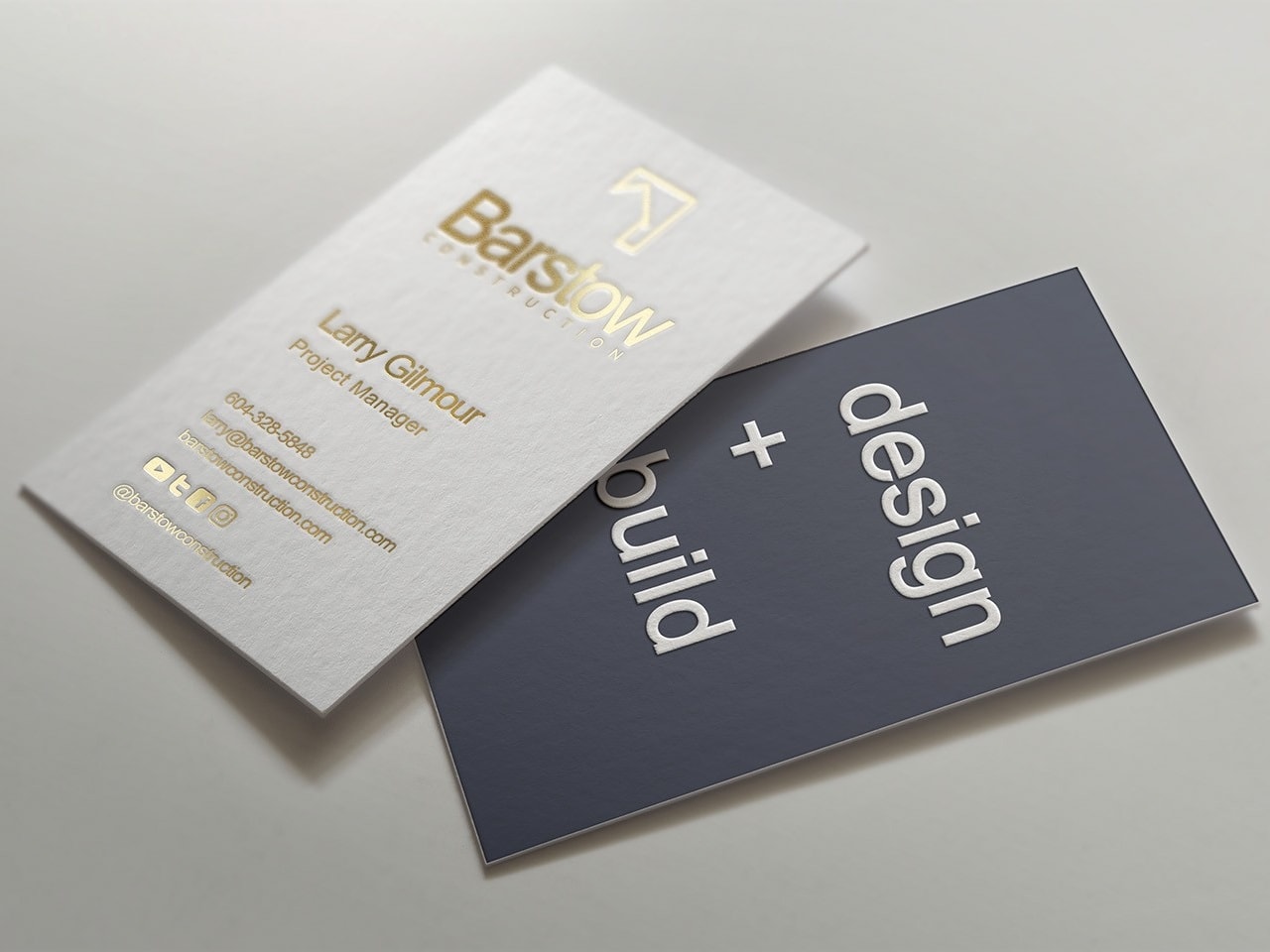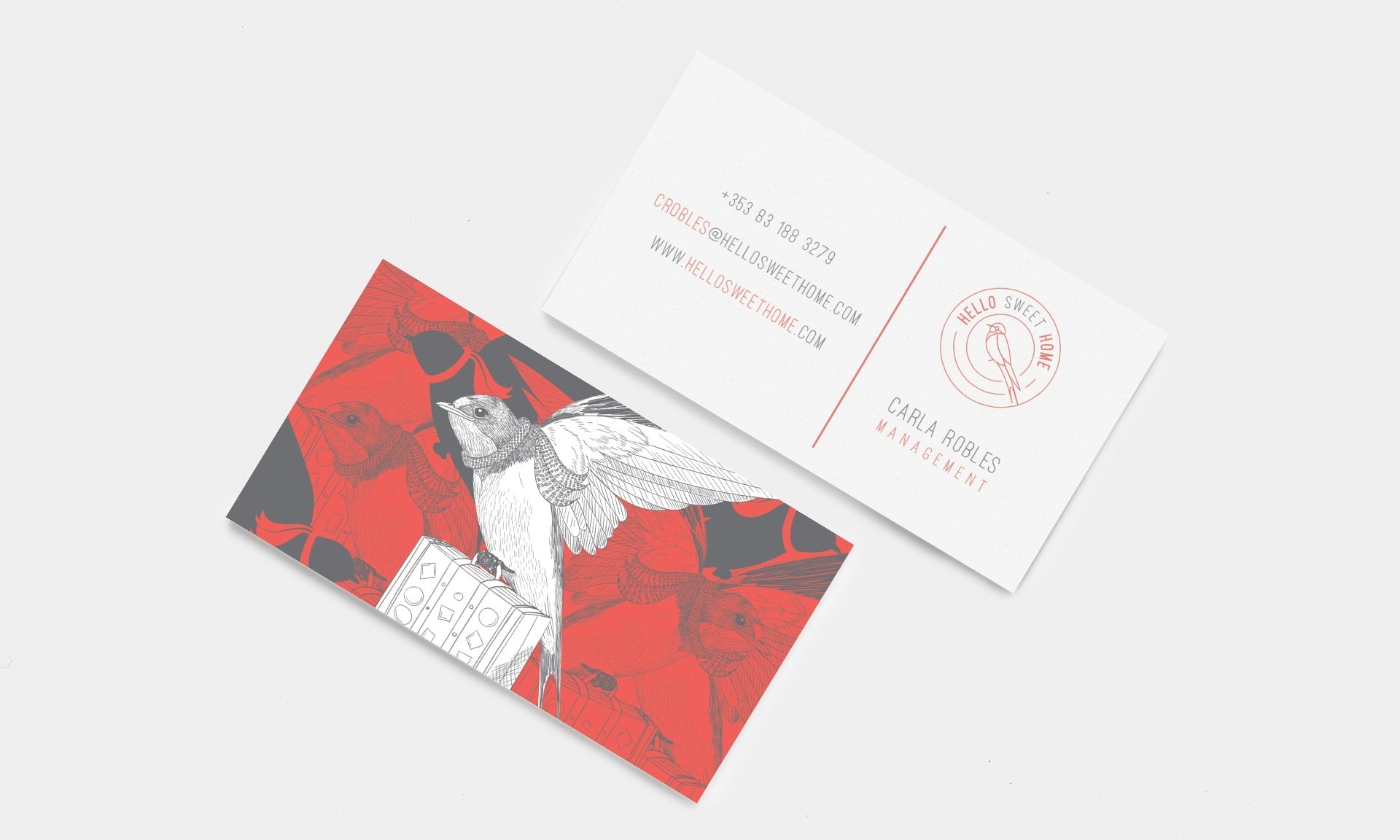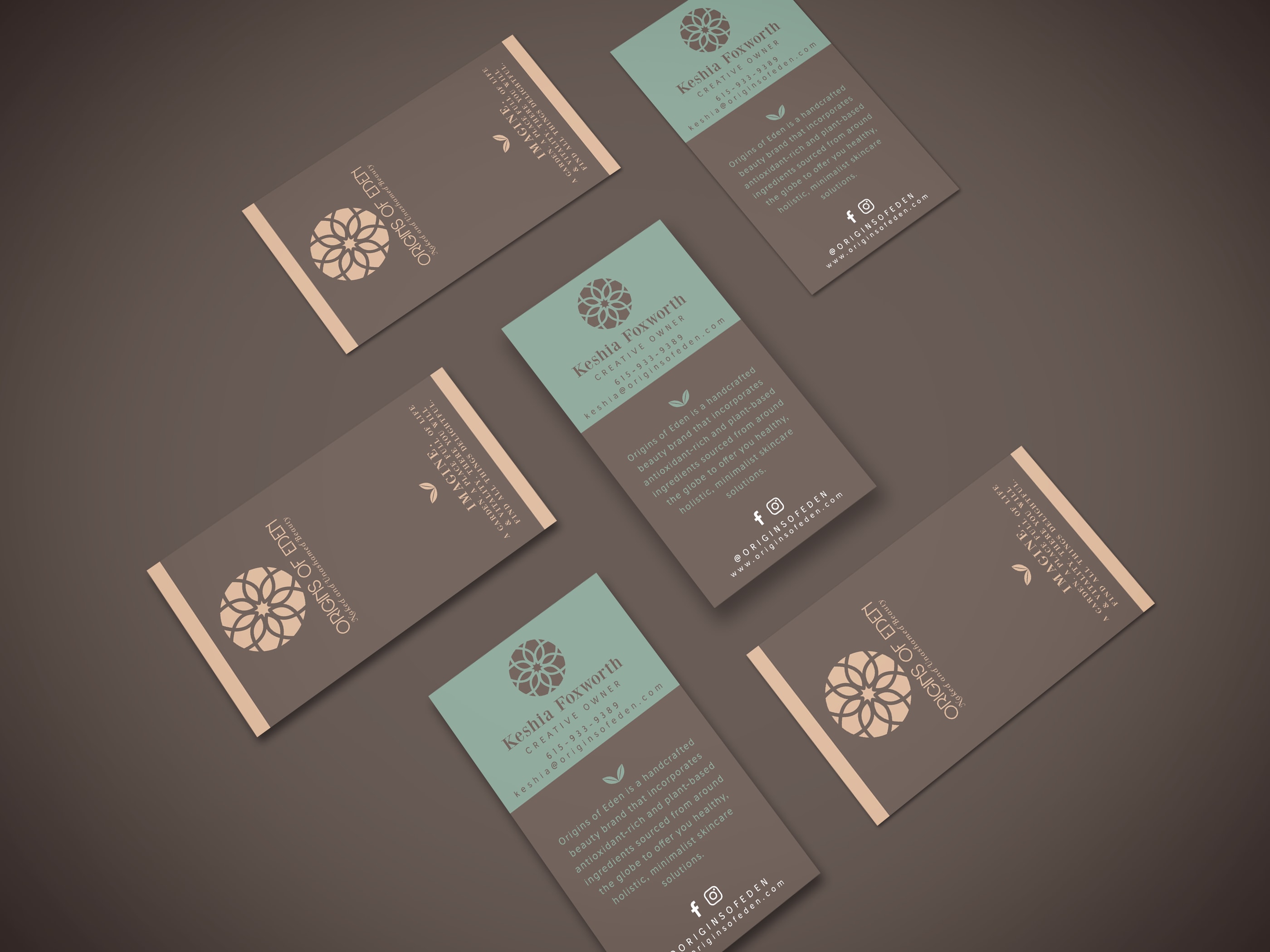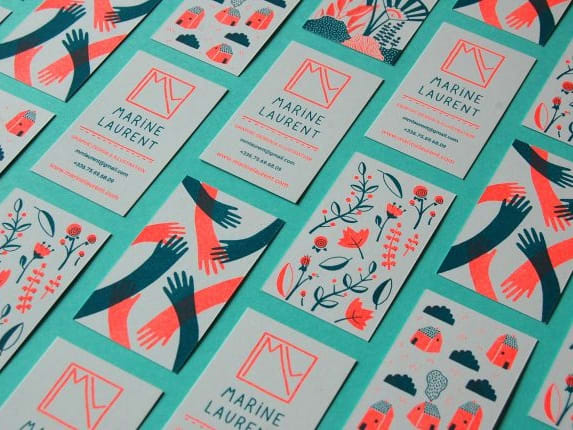
While it seems like every industry is being influenced and changed by evolving technology, there is one item that is more steadfast than ever: the good old-fashioned business card. If you consider each of your business cards a chance to make a connection with a potential customer, client or investor, it’s easy to see why an eye-catching business card is so important.
A beautiful letterpress business card design by cheekycreative via 99designs by Vista.
But let’s be real: lots of your cards might end up lost or thrown out. So how can you make sure people hold on to your card and remember your name? Easy! Pick the right fonts. While a strong logo plays a big part in a great business card, the right font choices can’t be overstated. Your font is what really drives your message home. Read on to learn more about the best business card fonts that are making moves in the business world, as well as which kinds of brands they suit best and why.
Business cards with clean sans serif fonts
This design combines light illustration and a sans serif font by ruaran via 99designs by Vista.
A sharp die-cut design for an interior designer by GemmyVN via 99designs by Vista.
Clean sans serifs fonts like Arial, Helvetica and Myriad Pro are favorites among many. And for good reason—they’re clean, respected and can serve any business from a design or tech startup to a general contractor. They tell people you’re modern, up-to-date on trends and appreciate efficiency. They normally have large ranges of styles and characters—which means more options for you to combine into a perfect design. These sans serifs are not always a great choice for business cards that are trying to send a more human message.
Unique handwritten or calligraphic scripts
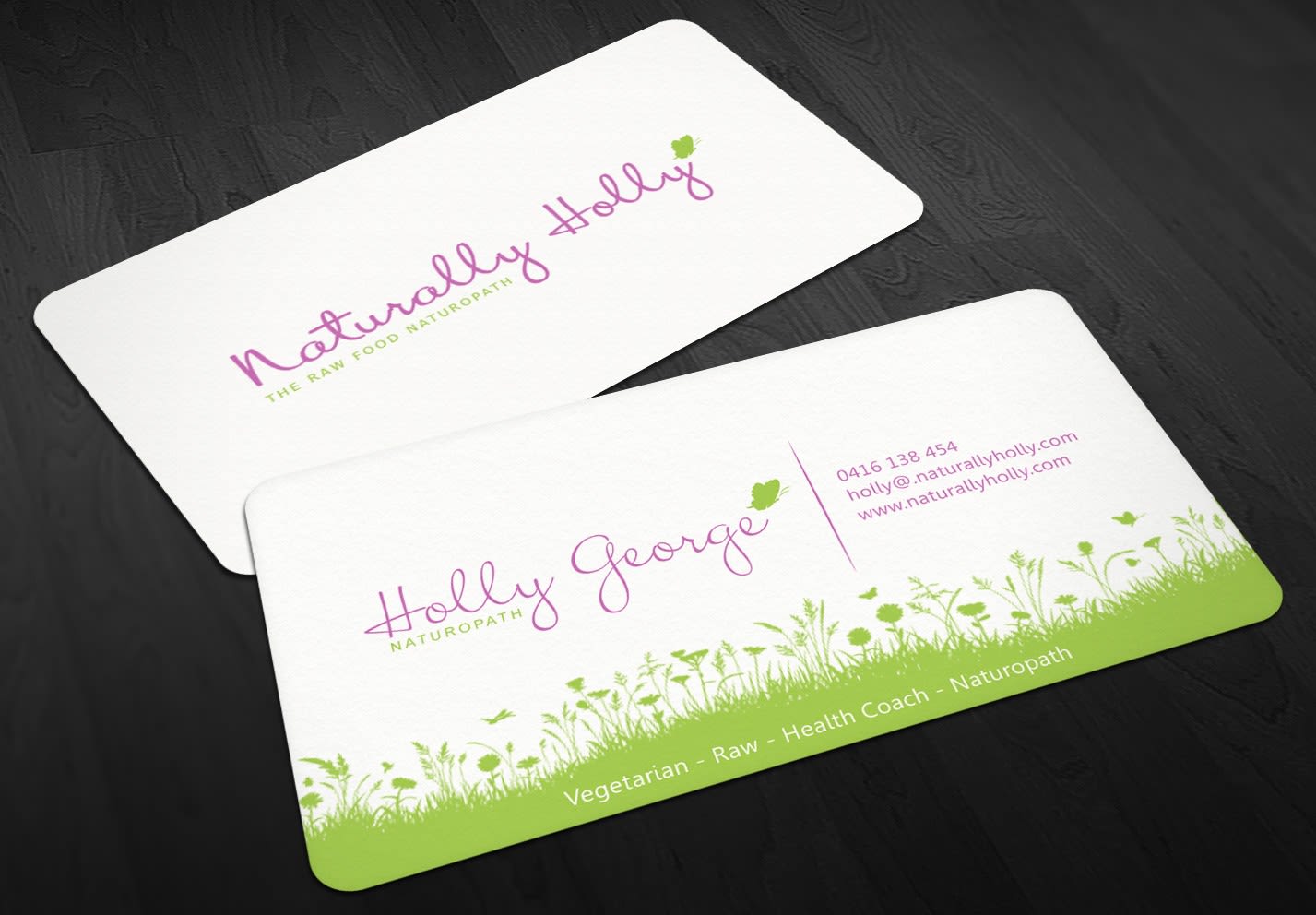
Cards that are anchored by a calligraphic or script font exude warmth. This is the type of business card font that tells potential clients to reach out anytime.
They are especially great if you’re self-employed or even a small business owner and trying to build a personal brand for yourself or if you want your business to feel personal and individualistic. If you have a strong, readable signature consider digitizing it, otherwise, custom calligraphic logos are a great choice.
Business cards with vintage and aged type
Another vintage design for a brewery. Business card by Hart Design via 99designs by Vista.
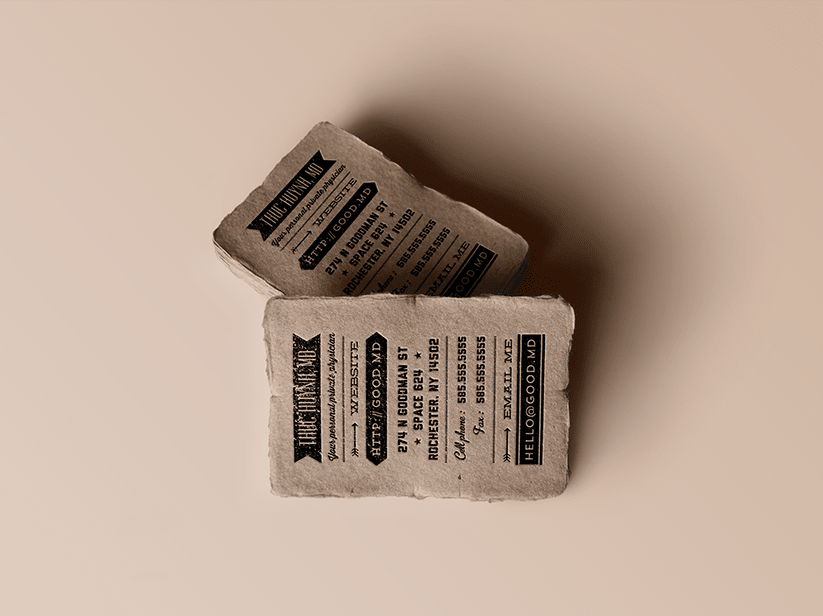
Vintage-style fonts are all the rage in graphic design these days, so it’s not surprising they’ve found their way onto business cards. Worn type brings a classic vibe to your brand and works well for industries that have been around for a while since they tend to make everything feel a bit more crafted and bespoke. Not that they can’t be successful in other arenas—check out the business card design above by hyakume for a truly unique card for a doctor’s office.
Classic fonts like Clarendon and Rockwell will work perfectly well especially when layered with worn textures. But keep in mind materials matter with these designs: kraft paper will make the card far more attention-grabbing than plain white and if you have the budget, step up to a letterpressed card for a truly artisanal experience.
Cards with character-driven serifs
A lovely, feminine design for a handcrafted beauty brand. Business card by J U L I A M A R I E via 99designs by Vista.
Serifs are arguably the most classic and refined-looking fonts, projecting steadiness and reliability. Plus they’re readable at small sizes. This is an important aspect when thinking about business cards, which normally max out at 3.5 inches wide. Serif fonts like Bodoni, Caslon and Garamond will always be a solid choice for the tiny phone numbers and email addresses on the bottom of your business card.
But there’s no need for them to be boring—in a crowded marketplace of photographers, there’s no doubt the business card for “Regular Phil the Picture Taker” wouldn’t stand out to someone looking for a bit of fun in their photography session.
Cute and fun fonts for business cards
A playful, friendly design by hypdesign via 99designs by Vista.
Who says the business world can’t be fun? These are the fonts that add personality and quirkiness to your card! If your business is part of an industry like childcare, pet care, or outdoor recreation, a stodgy sans-serif card might actually turn potential customers and clients off. The perfectly executed card in this sphere is playful without being irreverent, and fun while still taking the job seriously.
While many are forced to carry boring corporate branded business cards, entrepreneurs and small business owners have a unique opportunity to create a card that truly captures the personality and spirit of the companies they lead. Whether you’re looking to rebrand an existing business or launch an entirely new company, make sure your business card looks its best. Careful font choices and thoughtful branding will help ensure you and your business put your best foot forward into the marketplace.